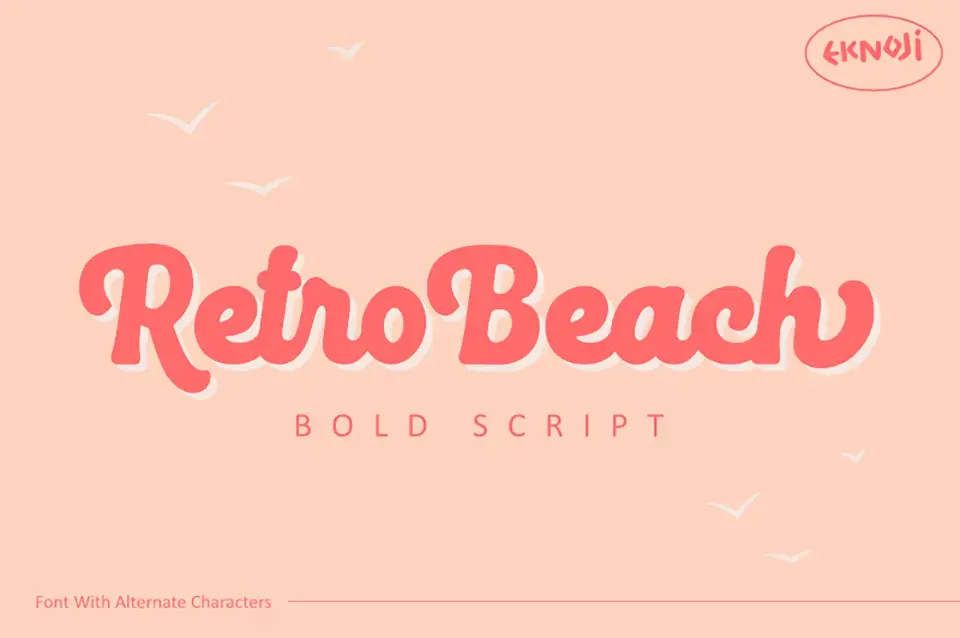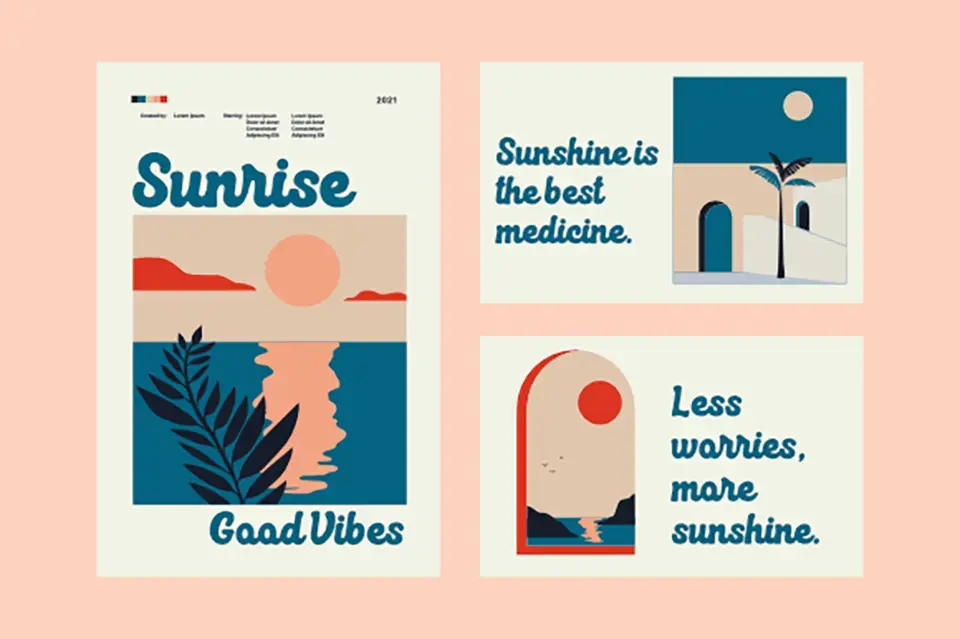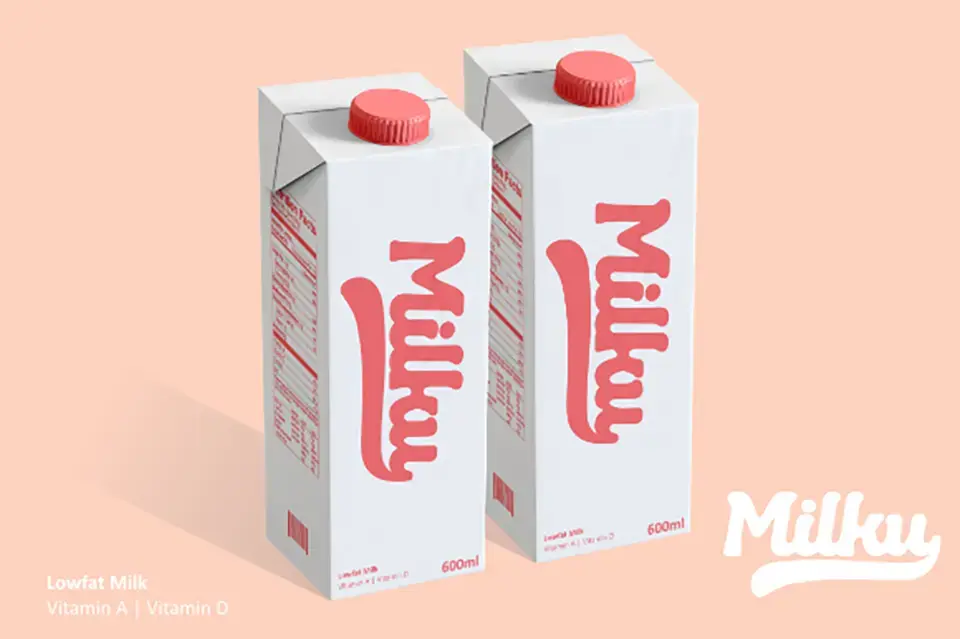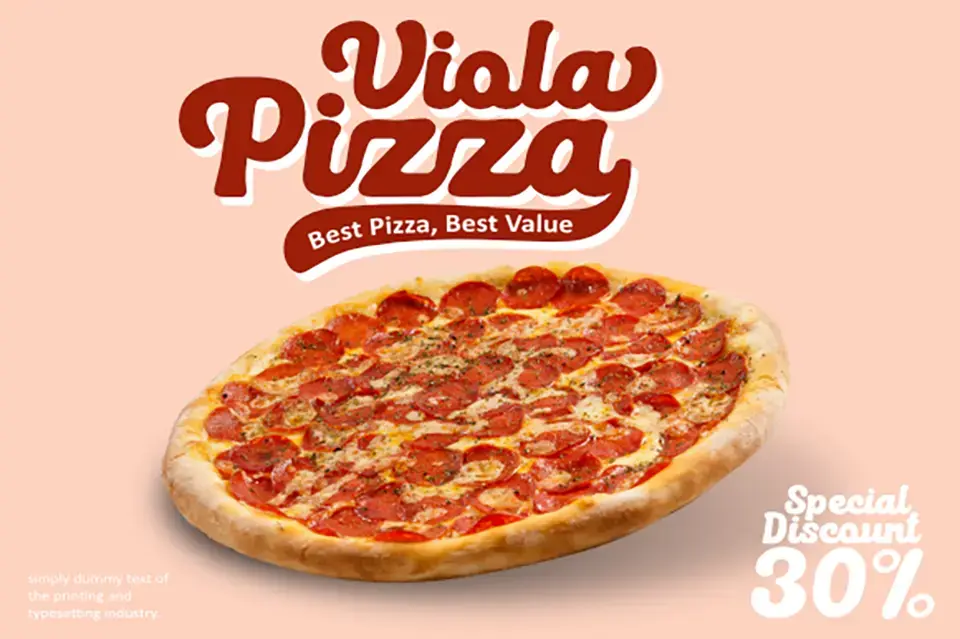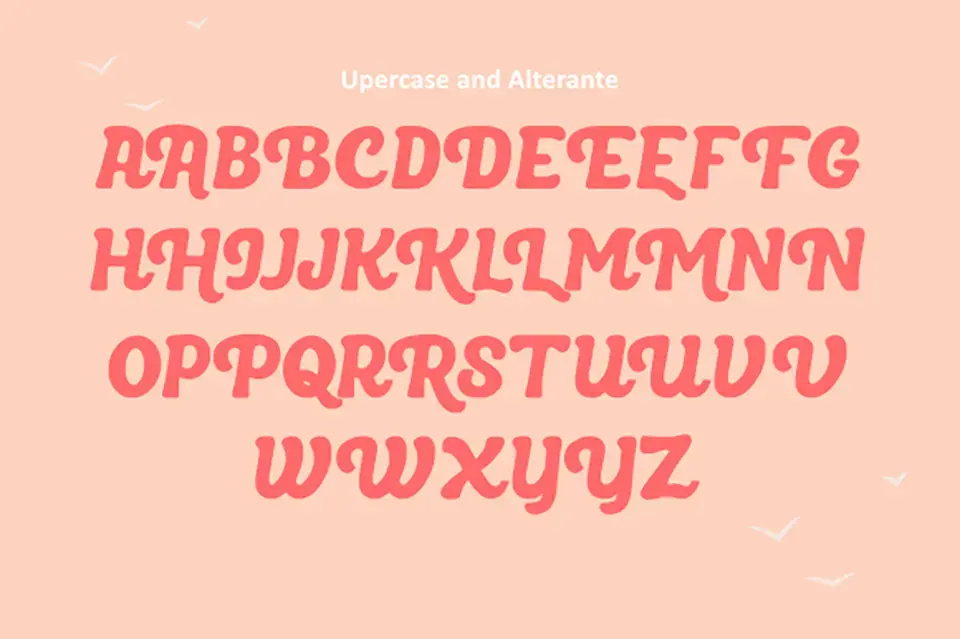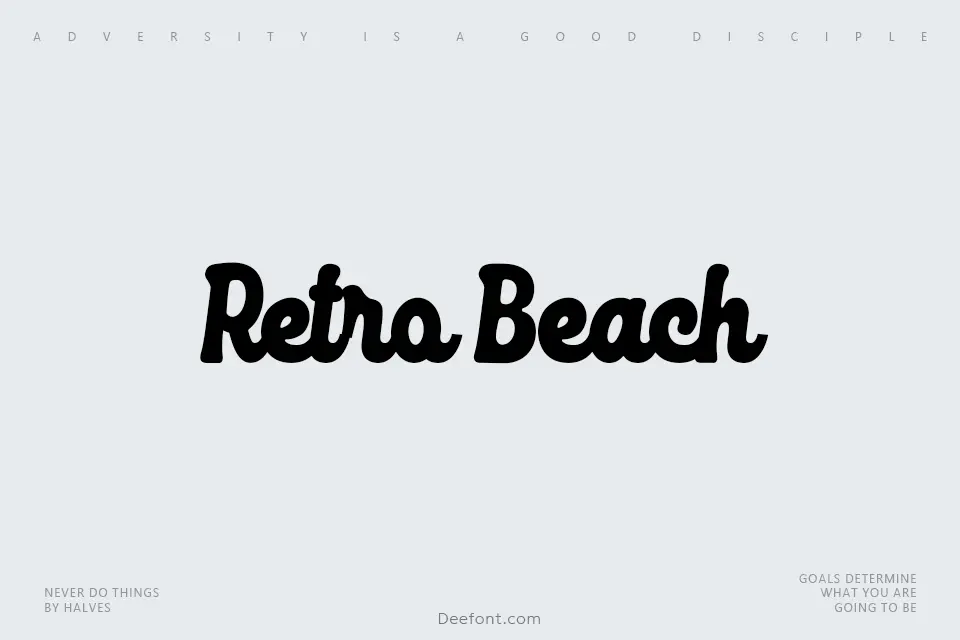
Retro Beach Font
Retro Beach is a stylish script display font crafted by Eknoji Studio, featuring smooth brush-stroke letterforms with a vibrant retro aesthetic. This handwritten typeface captures the essence of vintage beach culture and 1970s-inspired design trends, making it ideal for eye-catching headlines, creative logos, poster designs, and seasonal branding projects. The flowing, organic character of the font delivers warmth and nostalgic charm, perfect for designers seeking to evoke playful summer vibes or retro vintage aesthetics in their visual communications.